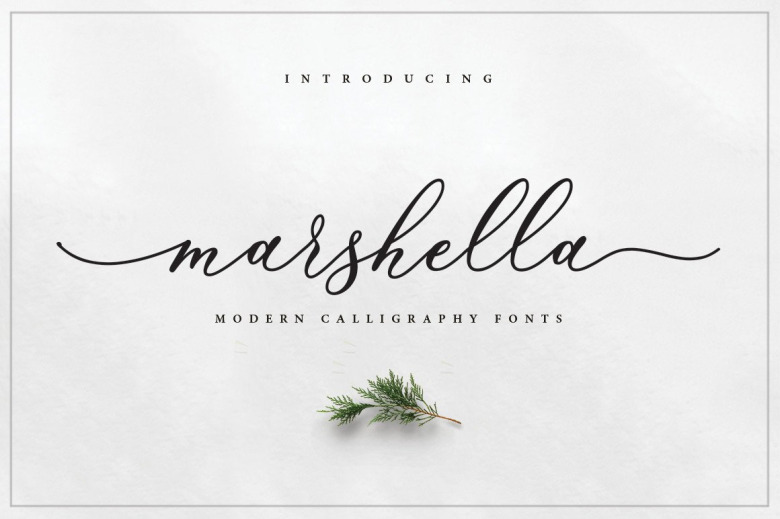
Marshella Font
Marshella Script is a modern calligraphy font. Marshella a beautiful for logotype, website header, fashion design,wedding card design and any more. Santyana comes with elegant style, It also comes as a Marshella font, and a Marshella Italic font. It contains a full set of lower & uppercase letters, a large range of punctuation, numerals, and multilingual support.